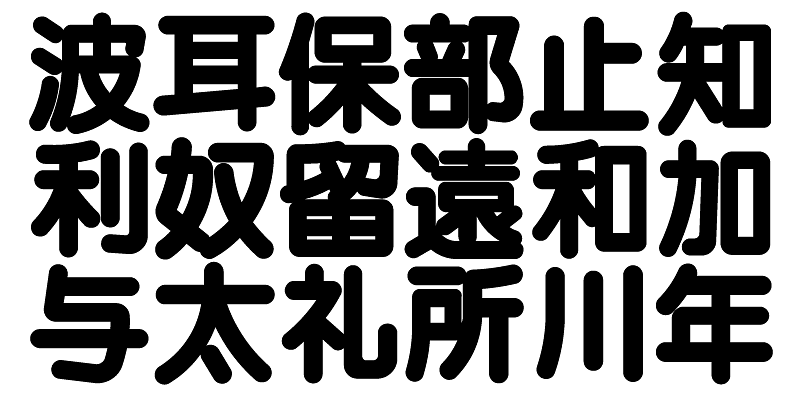
TA Marugo GF Font Free Download is a rounded Japanese Gothic typeface that combines modern simplicity with a friendly, approachable tone. Designed for clarity and visual warmth, this font is perfect for children’s content, signage, packaging, mobile apps, and branding that aims to be both professional and inviting.
The rounded ends of each stroke soften the overall appearance, making TA Marugo GF Font Free Download ideal for projects that require a gentle yet readable typographic presence. It maintains strong legibility even at smaller sizes, making it suitable for both body text and headlines in multilingual designs.
TA Marugo GF’s clean structure and geometric feel also lend it well to digital environments, offering a modern look that remains accessible and user-friendly. It pairs smoothly with both sans-serifs and more decorative fonts, giving designers flexibility across a wide range of layouts.